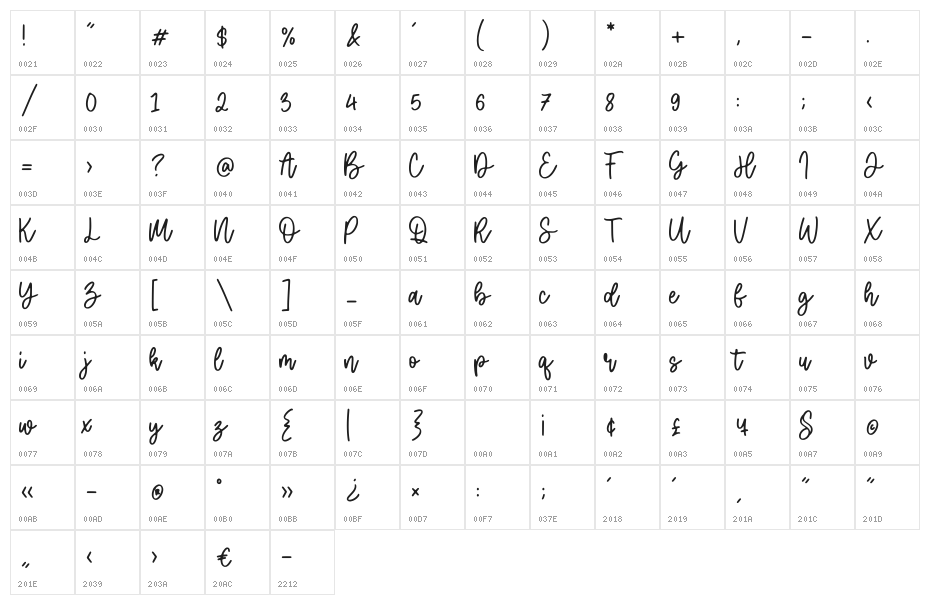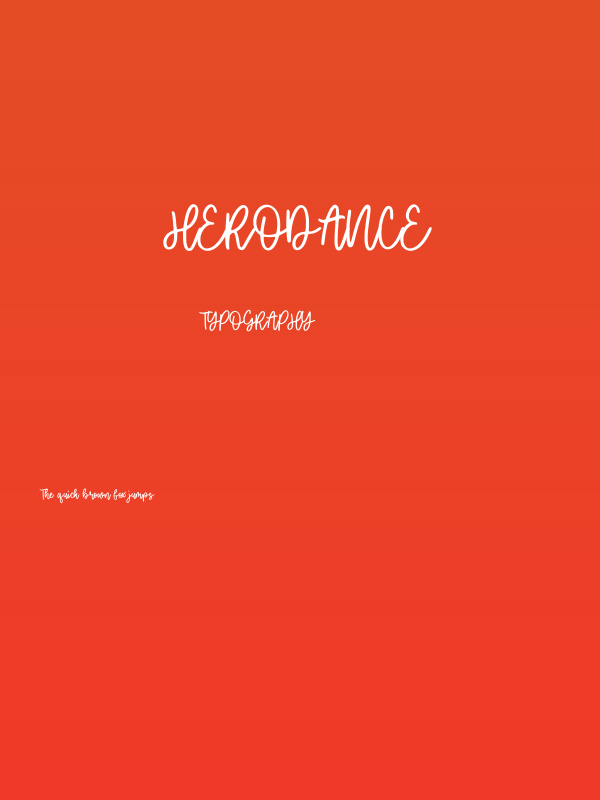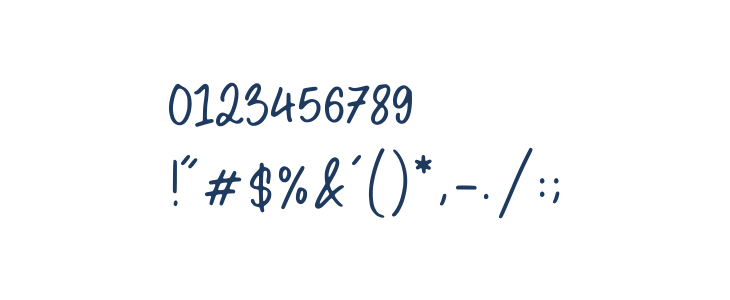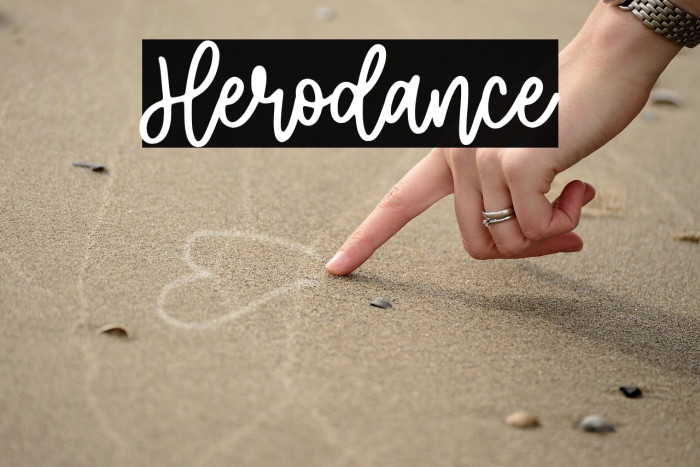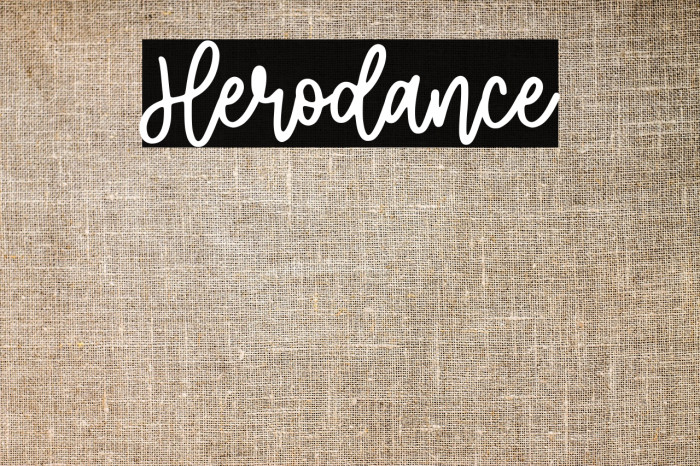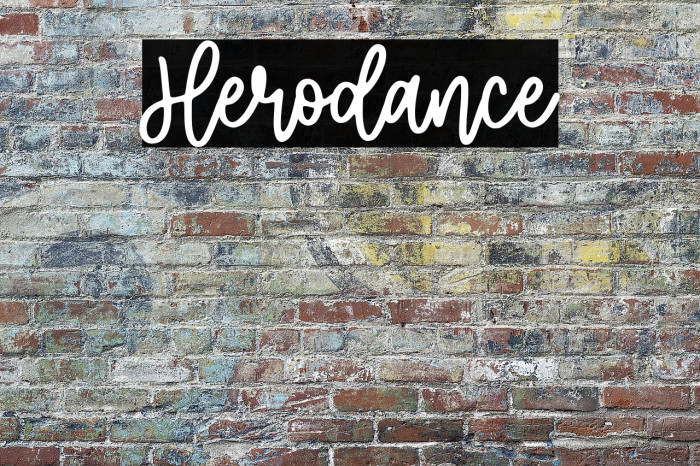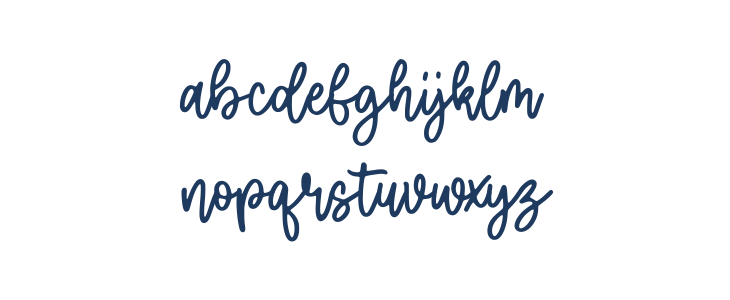
Herodance Font
Herodance Description
This font features a lively and expressive handwritten style, characterized by its fluid and continuous strokes. The uppercase letters are bold and slightly slanted, giving a sense of movement and energy. The lowercase letters maintain a consistent flow with a playful touch, making them highly legible despite their decorative nature. Numbers and special characters are designed to match the overall aesthetic, ensuring a cohesive look across all text. The font's dynamic appearance makes it suitable for creative projects that require a personal and informal touch.